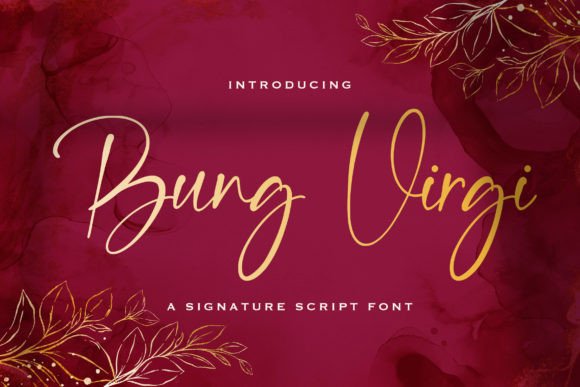
Bung Virgi Font: Elevate Your Designs with Elegance and Flair
In the realm of typography, few fonts manage to capture the essence of elegance and sophistication as effectively as the Bung Virgi Font. This delicate, elegant, and flowing handwritten font has been making waves in the design community, and for good reason. Its beautiful and well-balanced characters make it an incredibly versatile choice, capable of complementing a wide range of designs. Whether you’re a seasoned designer or a crafty DIY enthusiast, Bung Virgi Font is sure to breathe new life into your most creative ideas.
The Characteristics of Bung Virgi Font
So, what sets Bung Virgi Font apart from other fonts in its class? For starters, its fluidity is unparalleled. Each letter flows seamlessly into the next, creating a sense of continuity and harmony that’s hard to achieve with more rigid fonts. This fluidity, combined with its delicate strokes and elegant curves, gives Bung Virgi Font a distinctly refined and sophisticated feel.
Another notable feature of Bung Virgi Font is its exceptional legibility. Even at smaller sizes, the font remains clear and easy to read, making it perfect for use in a variety of applications, from body text to headings and titles. This legibility, paired with its aesthetic appeal, makes Bung Virgi Font an excellent choice for designers looking to create visually appealing and effective designs.
Versatility: The Key to Unlocking Bung Virgi Font’s Full Potential
One of the most significant advantages of Bung Virgi Font is its versatility. Its elegant and flowing design makes it suitable for a wide range of projects, including:
- Wedding and event invitations: Add a touch of sophistication and romance to your wedding or event invitations with Bung Virgi Font.
- Branding and packaging: Elevate your brand’s visual identity with a font that’s both elegant and memorable.
- Stationery and greeting cards: Create beautiful and heartfelt stationery and greeting cards that are sure to impress.
- Digital and print media: Use Bung Virgi Font in your digital and print media, such as blogs, magazines, and brochures, to add a touch of elegance and refinement.
Why Designers and Crafters Love Bung Virgi Font
Designers and crafters alike have fallen in love with Bung Virgi Font for a variety of reasons. Here are just a few:
- Ease of use: Bung Virgi Font is incredibly easy to use, even for those who are new to design or crafting.
- Customizability: With its wide range of applications and versatility, Bung Virgi Font can be customized to fit your unique design or crafting needs.
- Support and community: As a popular font, Bung Virgi Font has a supportive community of designers and crafters who share their ideas, inspiration, and expertise.
Tips and Tricks for Getting the Most Out of Bung Virgi Font
To truly get the most out of Bung Virgi Font, here are a few tips and tricks to keep in mind:
- Experiment with different sizes and colors: Don’t be afraid to try out different sizes and colors to see what works best for your design or project.
- Pair it with complementary fonts: Bung Virgi Font pairs well with a variety of fonts, so don’t be afraid to experiment and find the perfect combination for your design.
- Use it to add a personal touch: Bung Virgi Font is perfect for adding a personal touch to your designs or projects, so don’t be afraid to get creative and make it your own.
In conclusion, Bung Virgi Font is a delicate, elegant, and flowing handwritten font that’s sure to elevate your designs and projects to new heights. With its beautiful and well-balanced characters, versatility, and ease of use, it’s no wonder that designers and crafters alike have fallen in love with this stunning font. So why wait? Add Bung Virgi Font to your toolkit today and discover the difference it can make!